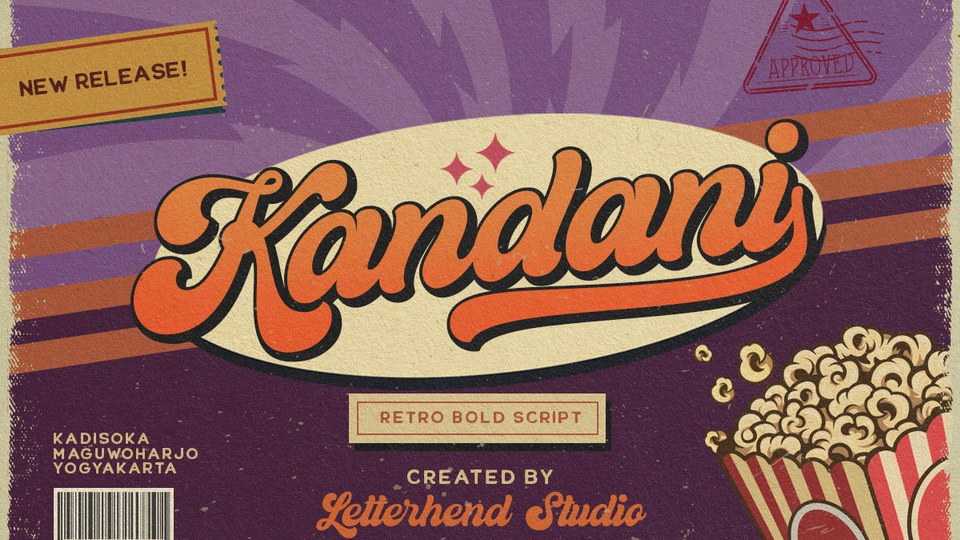
Download Kandani font, a retro bold script which will bring you back to 60s vibe. Kandani feels playfully nostalgic and delivers an incredible vintage aesthetic.